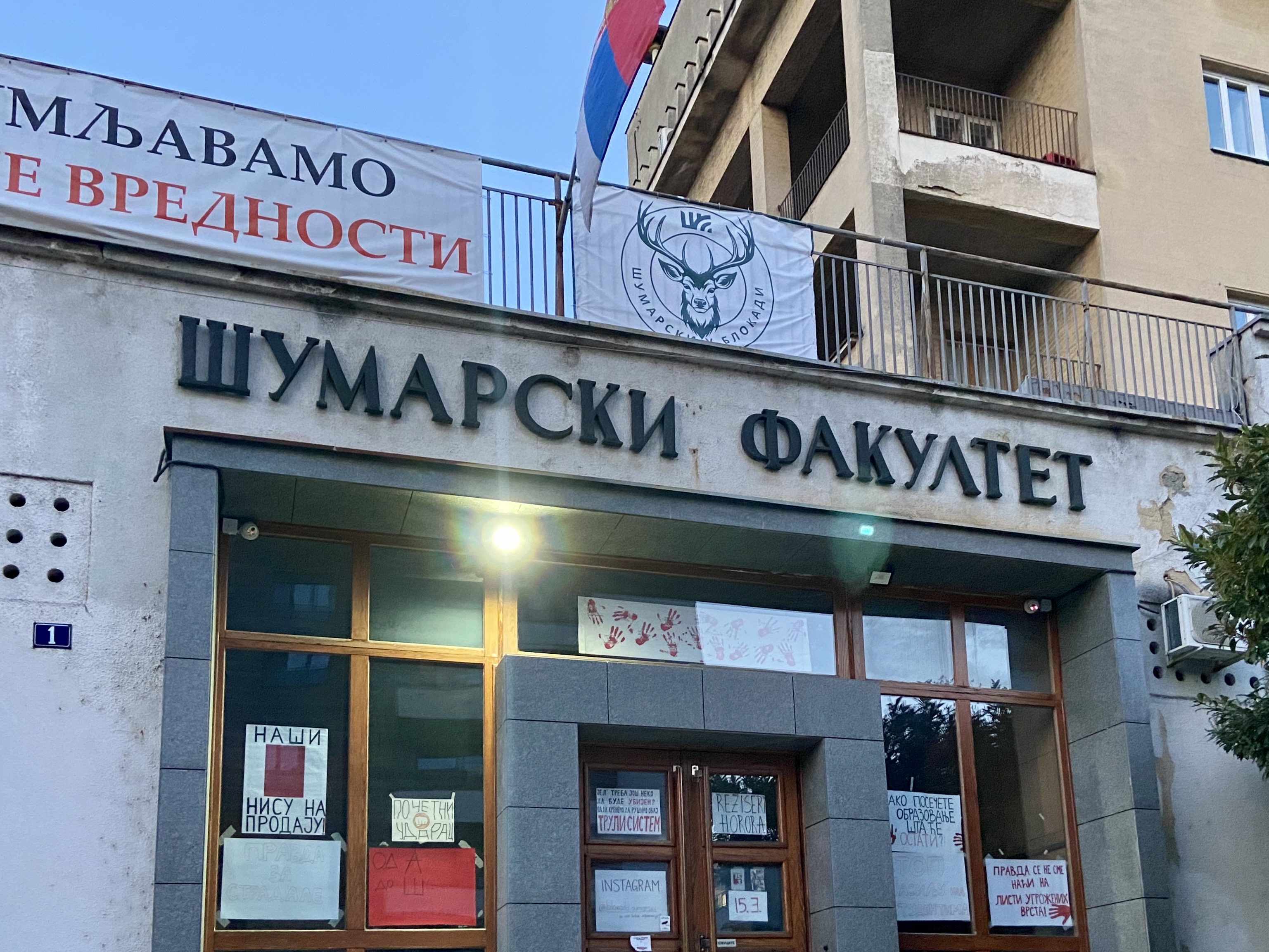
Šumarski Fakultet
Šumarski Fakultet — The Faculty of Forestry of the University of Belgrade, located in Čukarica (Banovo Brdo). Students protest posters seen at the entrance.
Interesting detail: looks like there used to be another letter at the end of 'ШУМАРСКИ".